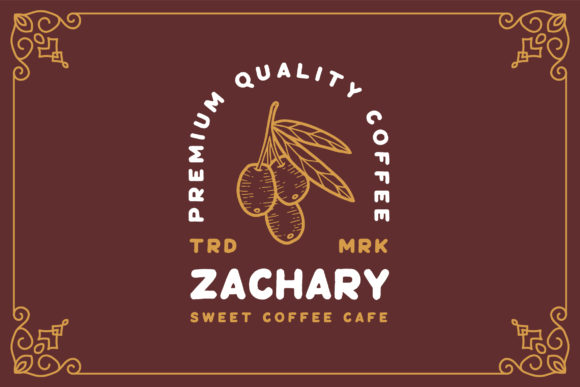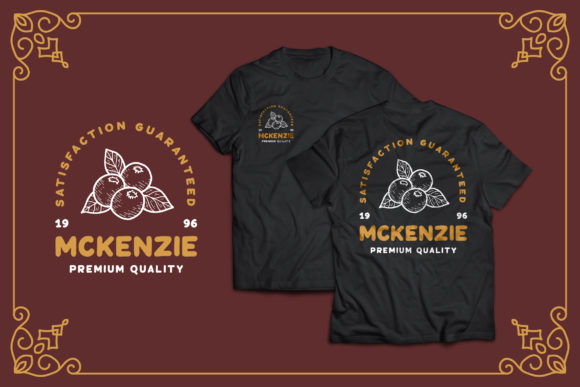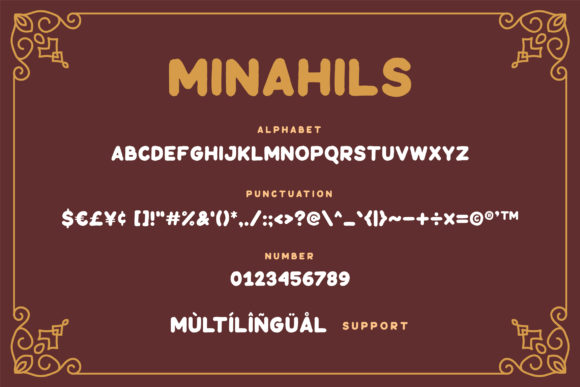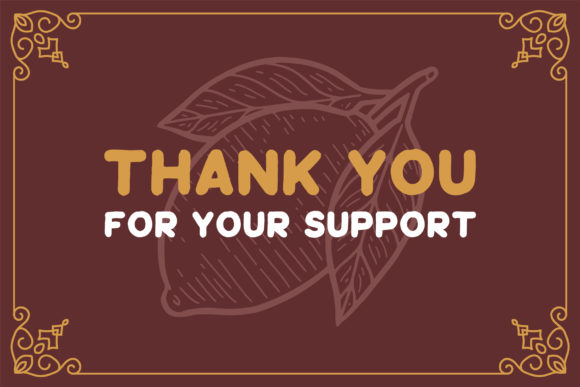
Introduction to Minahils Font
Minahils is a vintage hand-drawn font crafted with care and love.
It is perfectly suited for a wide variety of projects .
Key Features of Minahils Font